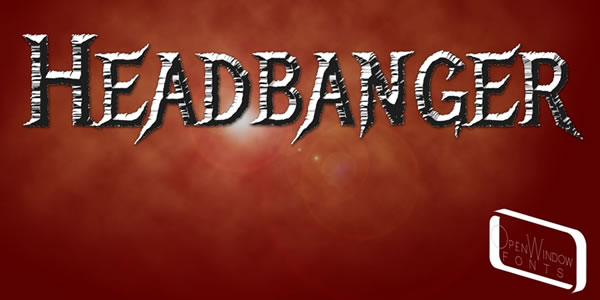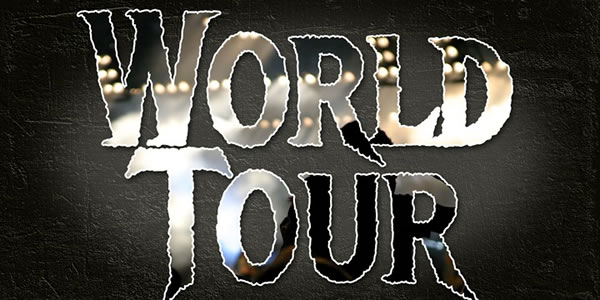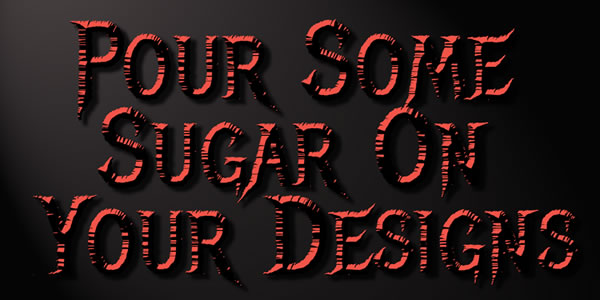
About Headbanger Font
Headbanger was inspired by lots of Heavy Metal album covers and posters. Only the most ‘Metal’ elements were combined to make the quintessential Heavy Metal font. Looks good on concert posters and guitar picks! Long live Headbanger.
First drawn were the inline forms and then they were traced, utilizing a playful ‘cutout’ effect.